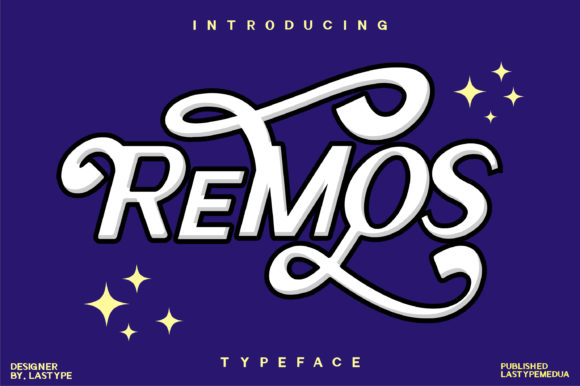
Behold, the ReMoS Font: A Whimsical Display Font to Transform Your Wedding Videos
In a world where visual storytelling reigns supreme, your wedding video holds the power to transport viewers into a realm of love, joy, and eternal memories. Allow us to introduce ReMoS, the captivating display font designed to elevate your wedding videos to breathtaking heights.
With its refreshing coolness and whimsical charm, ReMoS is the perfect font to add a touch of magic to your special day. Its trendy and stylish persona effortlessly elevates each of your creations, captivating audiences with its captivating presence.
Effortless Elegance:
ReMoS exudes effortless elegance, adding a touch of sophistication to your wedding video. Its carefully crafted glyphs and swashes dance harmoniously across the screen, creating a visual symphony that leaves viewers spellbound.
Emotional Resonance:
The essence of a wedding lies in the emotions it evokes. ReMoS understands this profound connection and seamlessly blends with the emotions of your special day. Its curves and lines flow with grace, mirroring the heartfelt moments, laughter, and tears that make your wedding video a timeless treasure.
Storytelling Brilliance:
Every wedding video is a story waiting to be told. ReMoS serves as your eloquent narrator, guiding viewers through the journey of love and commitment. Its enchanting characters and symbols add depth and meaning to each scene, leaving an unforgettable impact on the hearts of your audience.
Creative Versatility:
ReMoS is not merely a font; it is an artistic chameleon, adapting effortlessly to a myriad of wedding video styles. Whether you envision a classic and timeless aesthetic or a modern and edgy vibe, ReMoS seamlessly blends in, enhancing your vision with its versatile charm.
Effortless Accessibility: